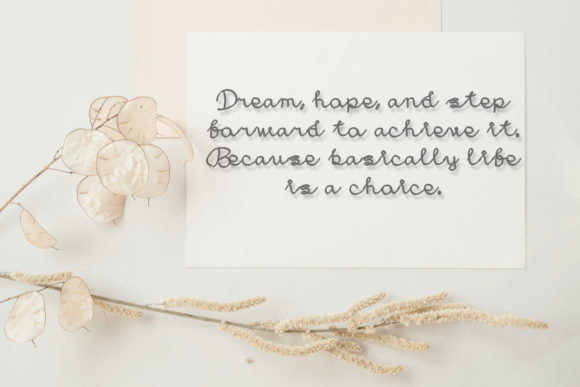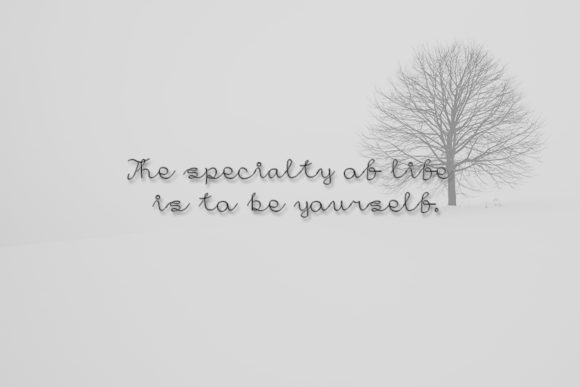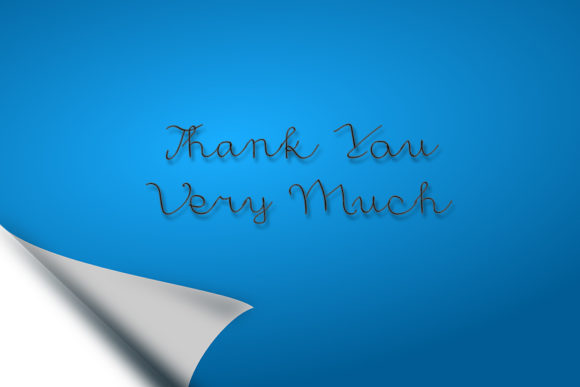
Japanese Font
Japanese is a delicate and thin script font. This versatile script font has a wide spectrum of applications ranging from greeting cards to headlines and is guaranteed to add a romantic feel to your next project.